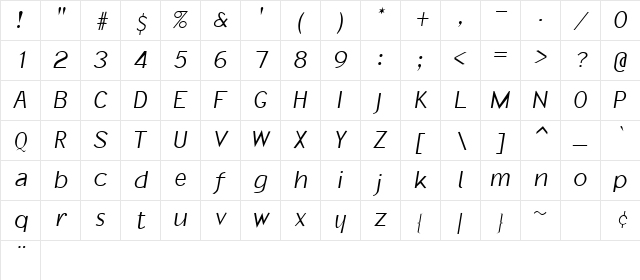
Justice Oblique
Justice Family
Design Context for Justice
Justice is a composed and adaptable typeface that performs quietly and consistently across a wide range of design contexts. The slanted form adds forward momentum and visual energy.
Pro Tip: Use Justice for emphasis, pull quotes, and subheadings where its slanted energy can add rhythm to the layout.